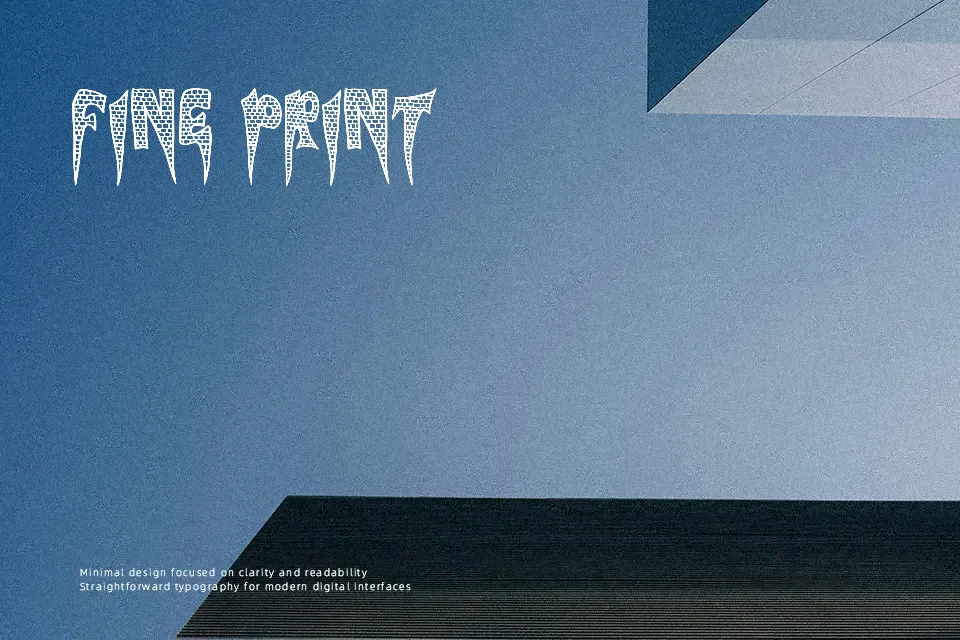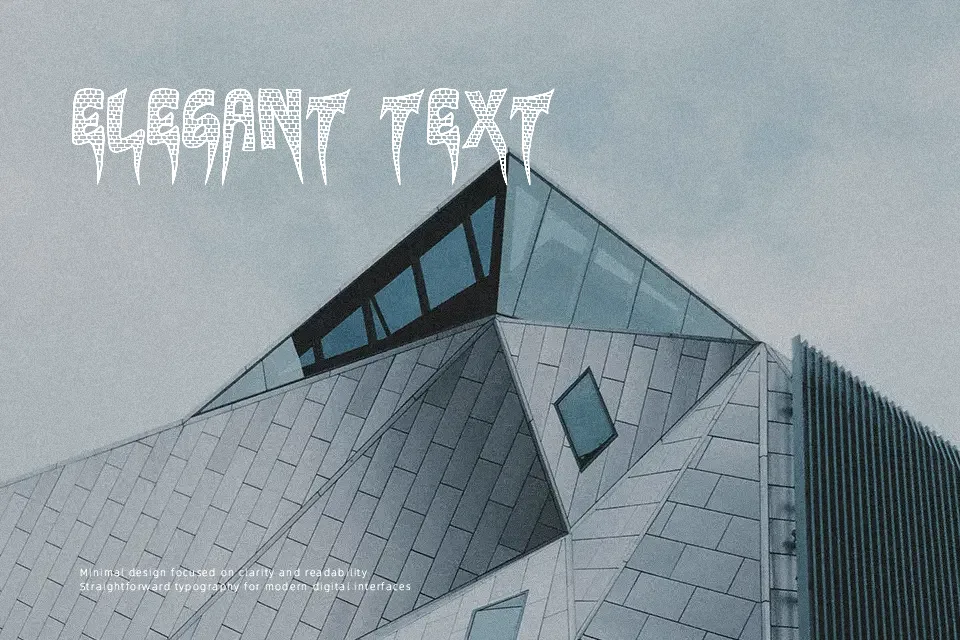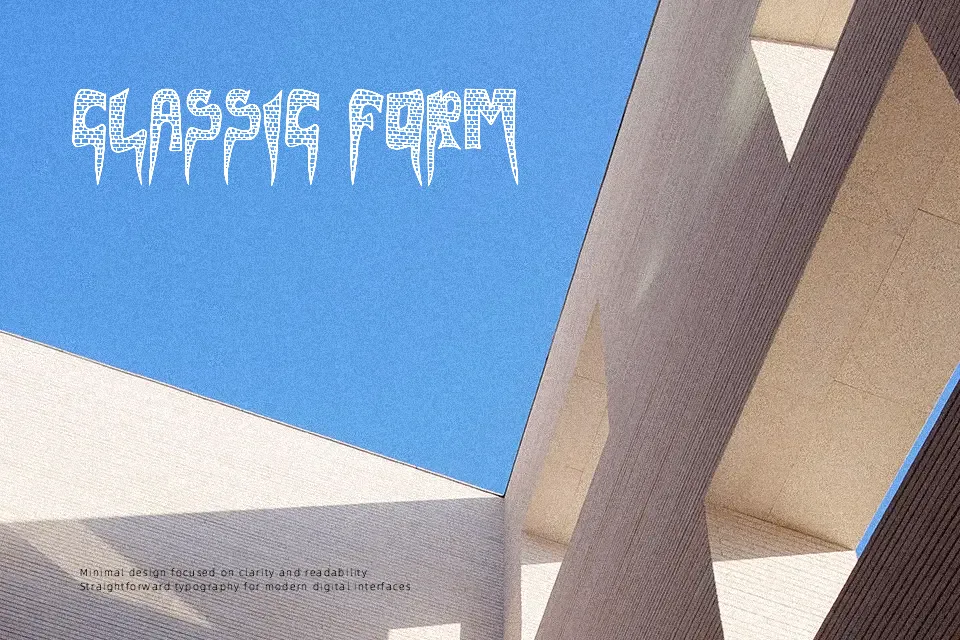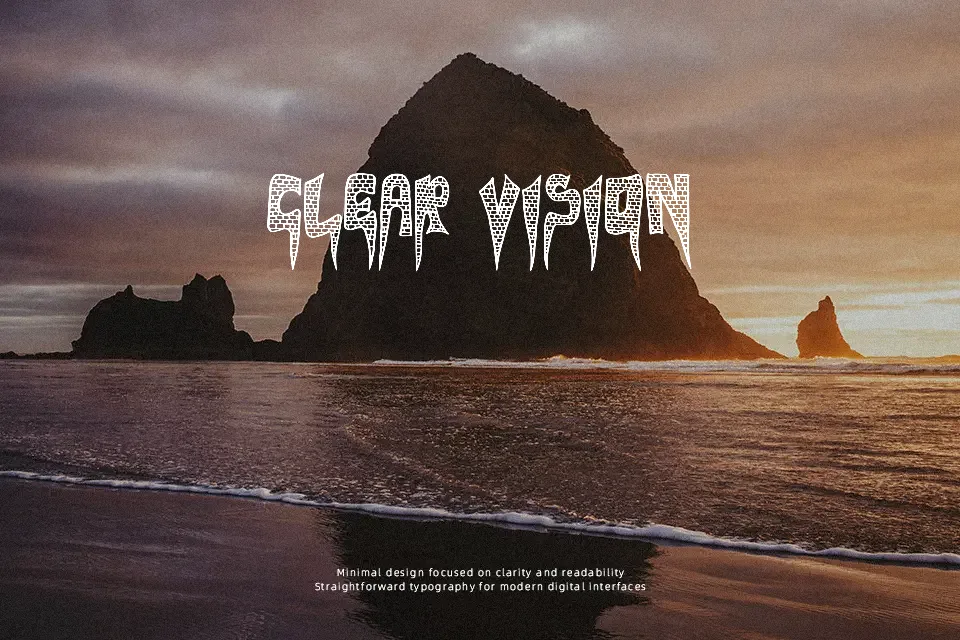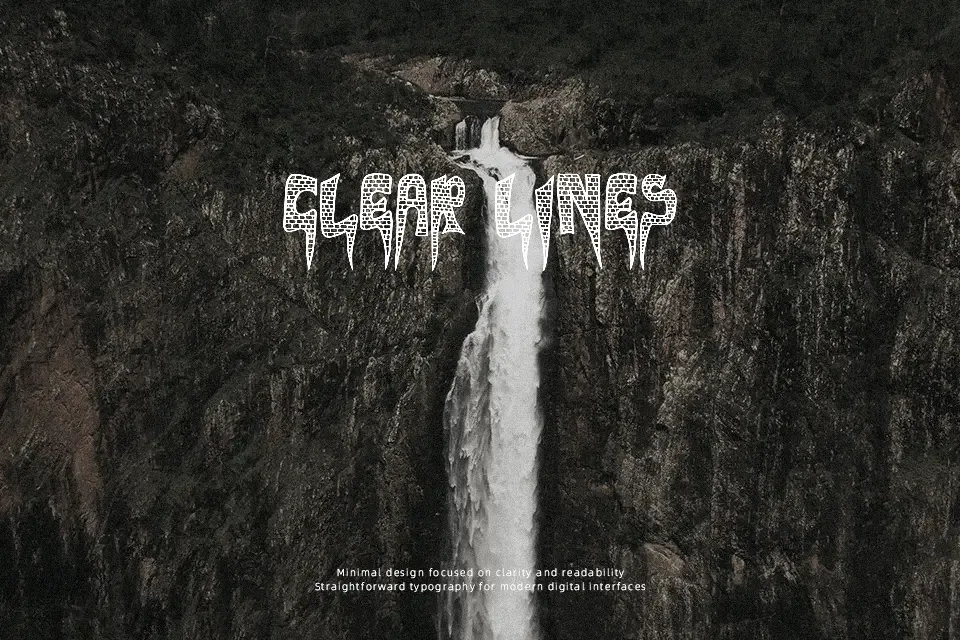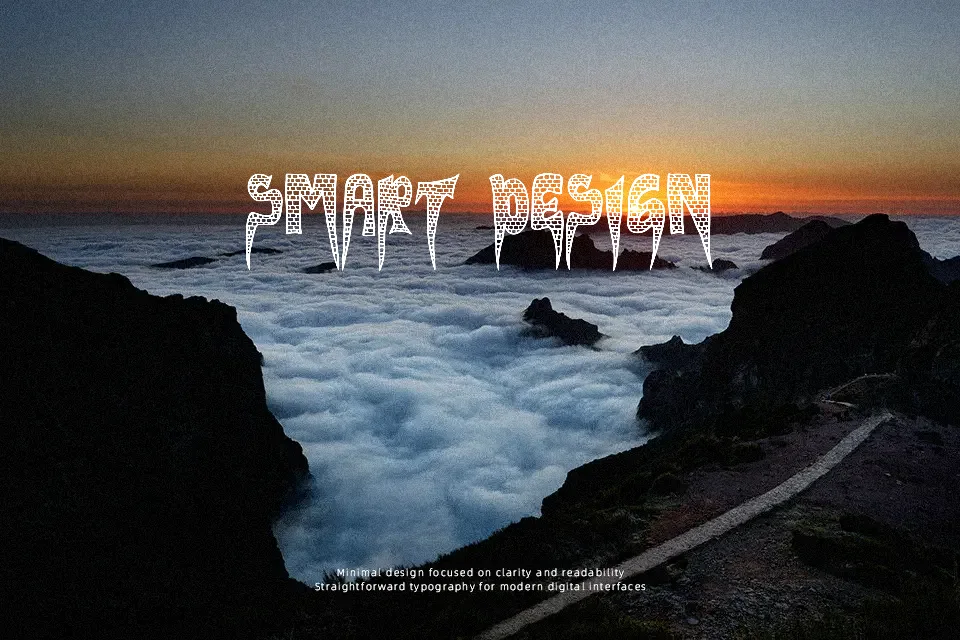
Vaganza Font
Vaganza Font introduces an aggressively textured display aesthetic characterized by jagged outlines, asymmetrical stroke weights, and rough contours. The design features intentionally varied proportions and compact character spacing, resulting in a dark, disjointed rhythm that amplifies dramatic tension across focal headlines. While these erratic details create striking visual impact at larger scales, the heavy distressing impairs clarity when rendered in dense passages. The typeface performs effectively in short titular treatments, though tiny caption text tends to lose its defining structural silhouettes. For best results, use it exclusively where prominent sizing lets its ominous qualities shine.
Best For: horror movie posters,Halloween party flyers,dark fantasy book covers,indie game titles
Not Ideal For: continuous body text,technical documentation,small UI labels,formal corporate stationery
Perfect for film, gaming, and halloween, with a dark and decorative style.